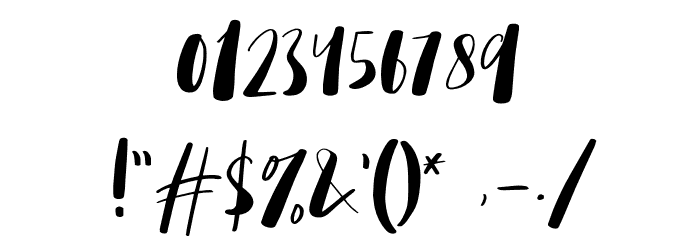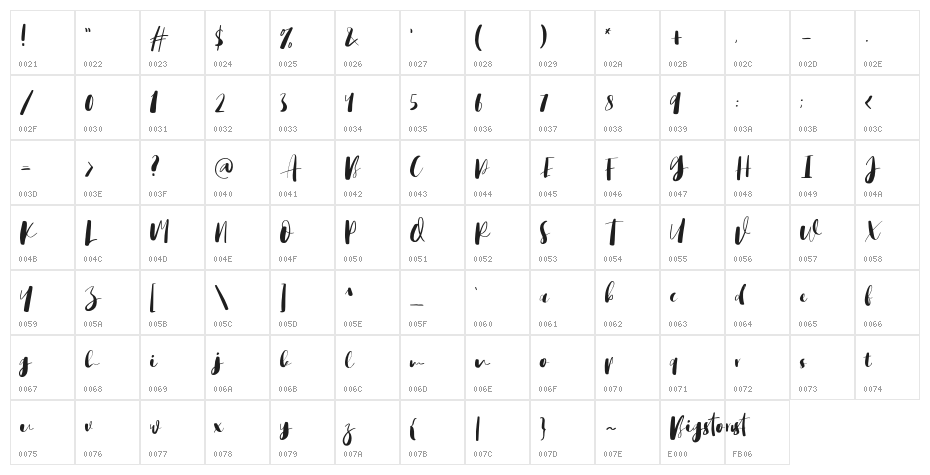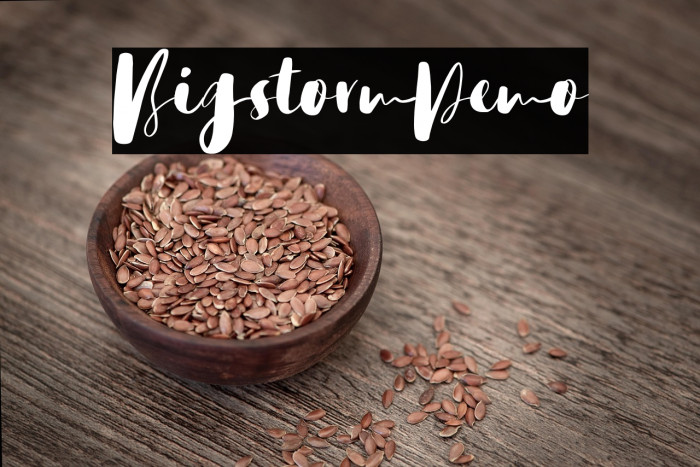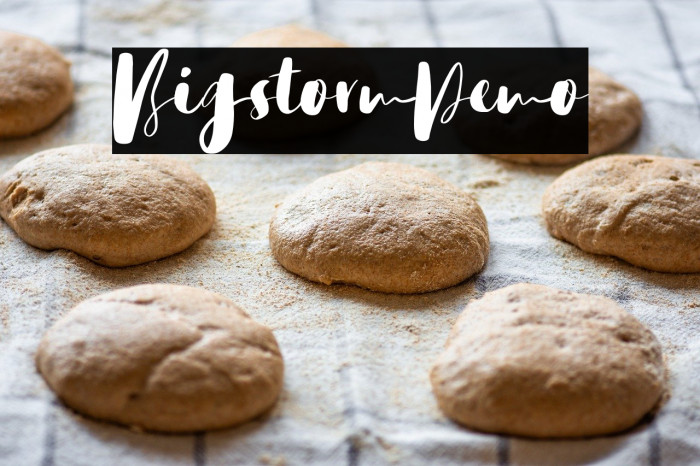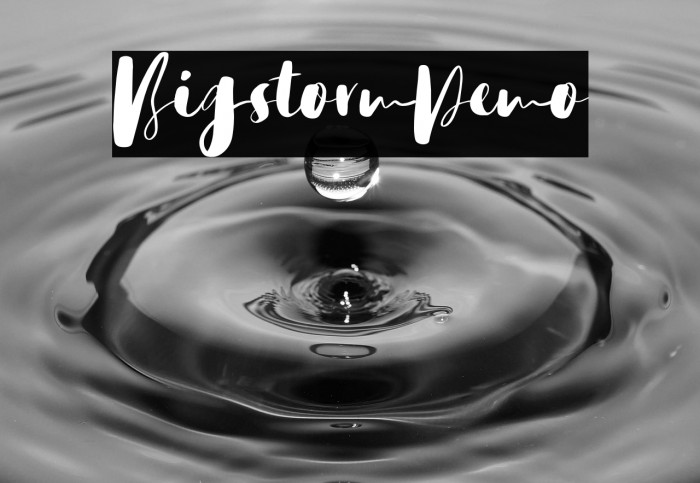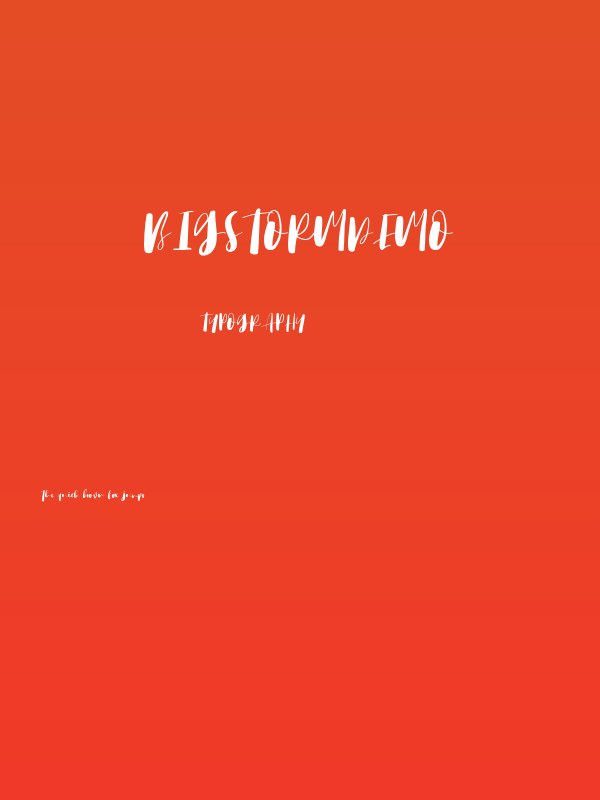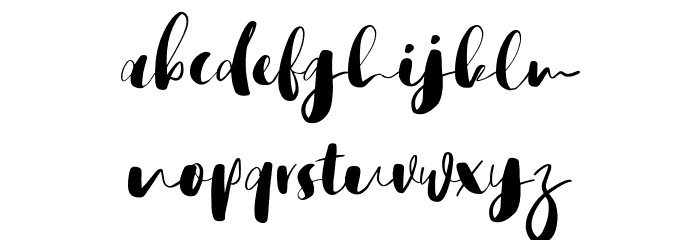
BigstormDemo Font
BigstormDemo Description
This font features a bold, expressive style with a handwritten script appearance. The letters are fluid and dynamic, with varying stroke widths that create a lively and energetic feel. The uppercase letters are particularly striking, with tall, sweeping lines and a sense of movement. The lowercase letters maintain a consistent flow, complementing the uppercase with their own unique flair. Numbers and special characters are designed with the same attention to detail, ensuring a cohesive look across all elements. This font is perfect for projects that require a personal touch, such as invitations, greeting cards, or branding materials.